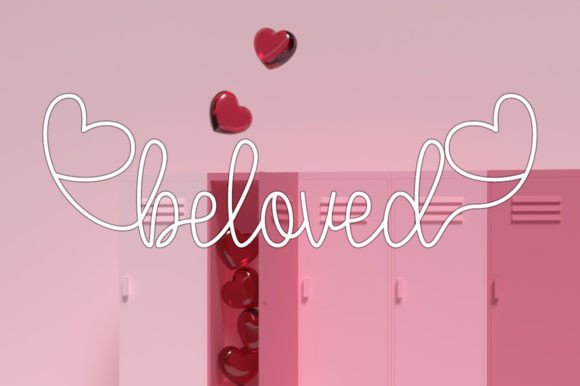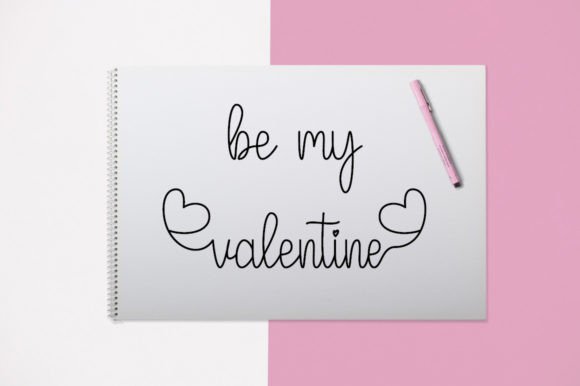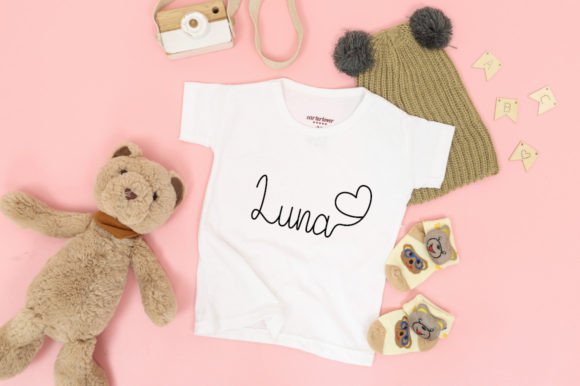
Add Charm and Style with Lovely Handwritten Font
The Lovely Handwritten Font is a beautifully crafted script that blends cuteness and class in one elegant design. Handcrafted with care, this font brings a soft, expressive touch to any creative project. Whether you’re designing branding elements or romantic invitations, Lovely adds personality and elegance to your work.
Ideal for Invitations, Logos, and Feminine Branding
Lovely is perfect for a wide variety of creative applications, especially those that require a sweet and stylish tone. Use it for wedding invitations, greeting cards, beauty brand logos, social media graphics, and more. Its graceful curves and playful charm make it a fantastic option for projects that call for warmth, friendliness, and sophistication.
In addition, the font pairs beautifully with floral designs, pastel color palettes, and minimalist layouts—making it ideal for lifestyle bloggers, fashion boutiques, and personalized stationery.
A Handwritten Script with Calligraphic Elegance
What makes the Lovely Handwritten Font truly stand out is its balance between traditional calligraphy and modern flair. Each letter is designed with smooth, flowing strokes that evoke a handwritten feel, while still maintaining clarity and style.
Moreover, the subtle calligraphic influences give the font a timeless elegance, while its light, contemporary design ensures it fits into today’s modern design trends.
Works Perfectly in Digital and Print Projects
Lovely is versatile enough to be used across both digital and print formats. Whether you’re designing an Instagram post, a blog logo, a thank-you card, or packaging for a handmade product, this font will shine with charm and readability.
Additionally, you can pair Lovely with clean sans-serif fonts to create beautiful contrast in your designs. This allows for endless creative possibilities—from casual chic layouts to elegant and romantic compositions.
Why Designers Love Lovely Handwritten Font
Here’s why this font is a favorite for so many creatives:
Cute and classy handwritten style
Perfect for weddings, branding, and stylish social media posts
Easy to read with beautiful flowing curves
Ideal for both digital and print designs
Adds elegance, personality, and warmth to your work
Make Every Word Feel Special
In conclusion, the Lovely Handwritten Font is a charming and elegant typeface that gives your projects a warm, handcrafted feel. Whether you’re creating heartfelt wedding materials or stylish brand visuals, Lovely offers just the right mix of sweetness and sophistication.
Let this delightful font bring your designs to life with beauty and grace. If you’re looking for a script that’s both playful and polished, Lovely is the perfect fit for your next creative adventure.